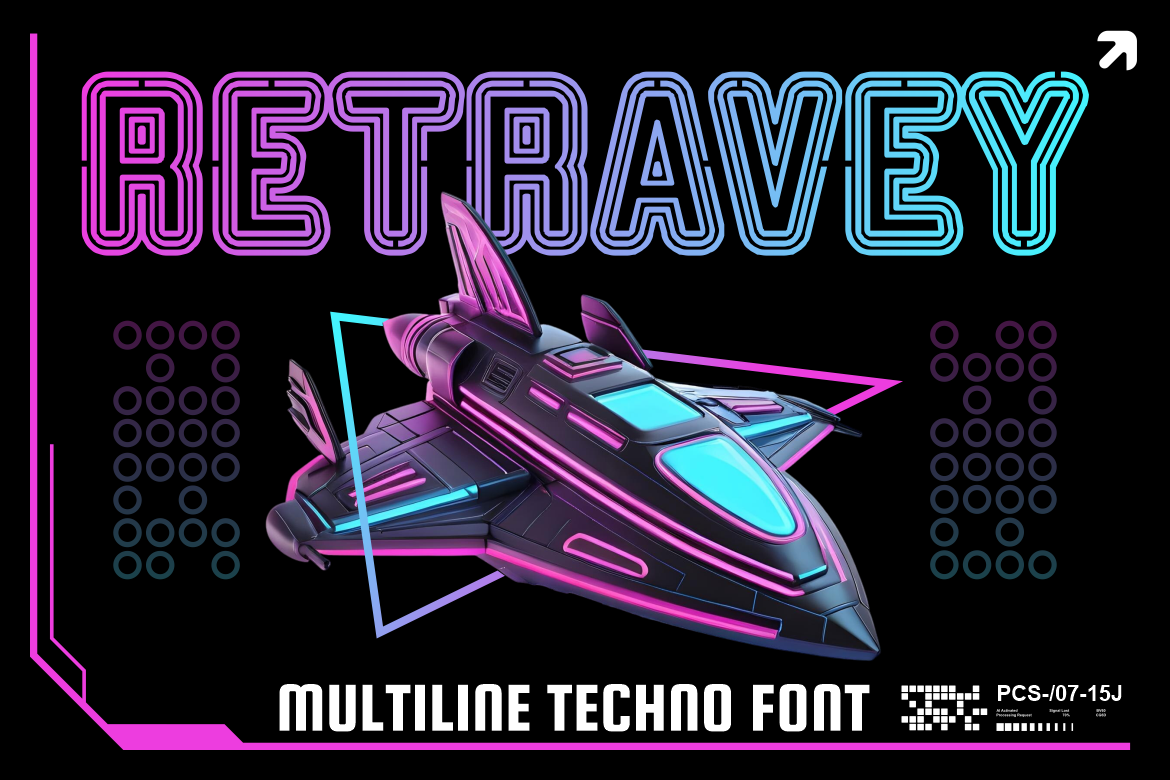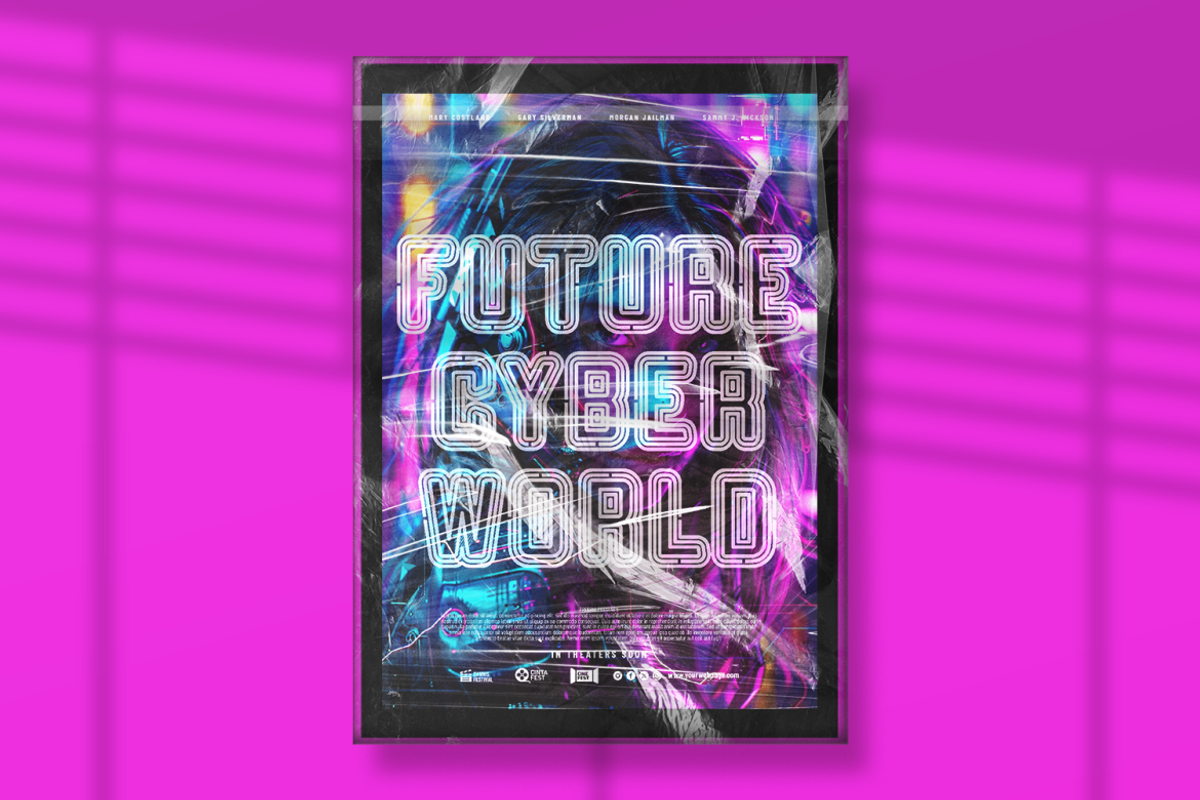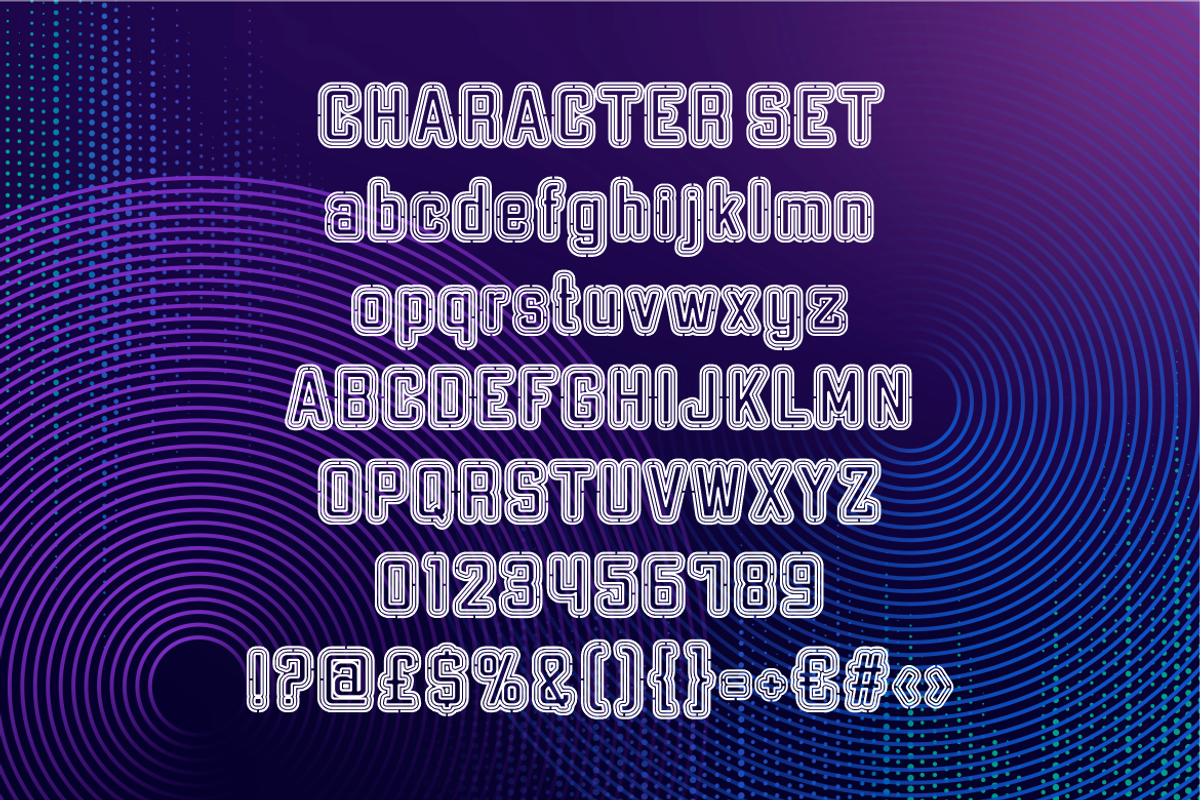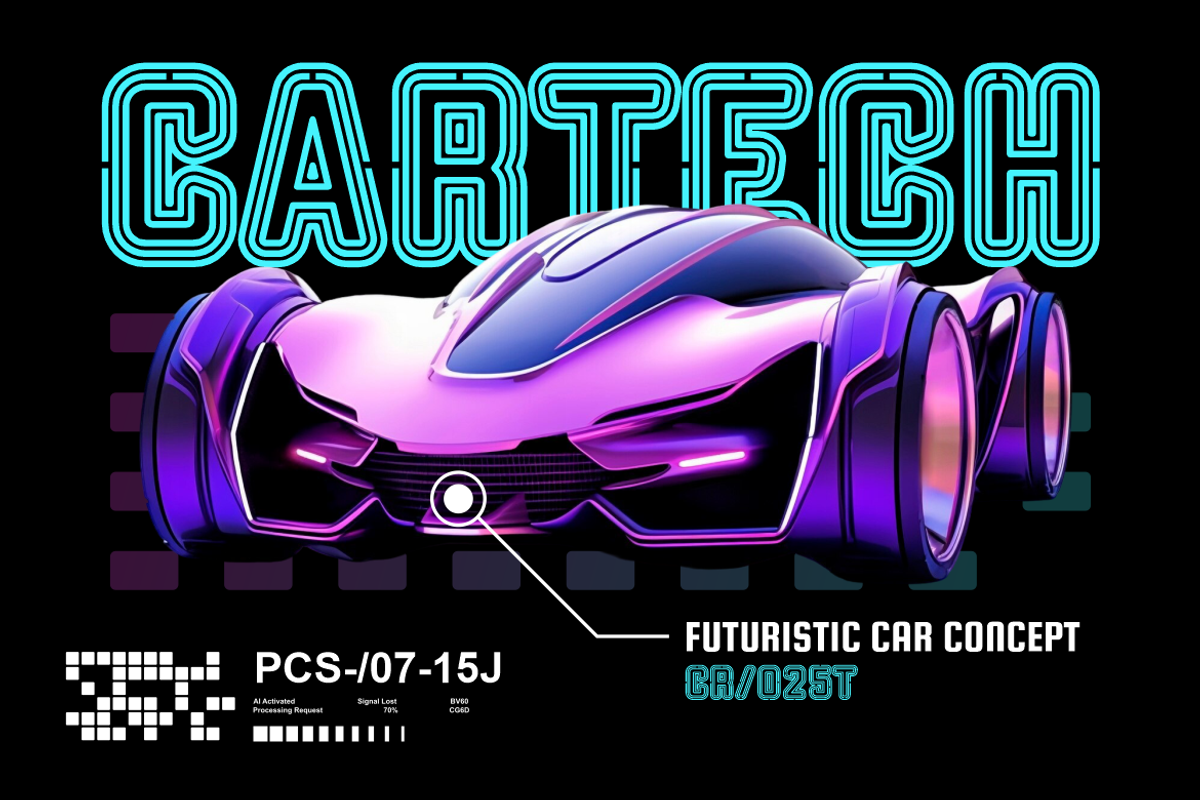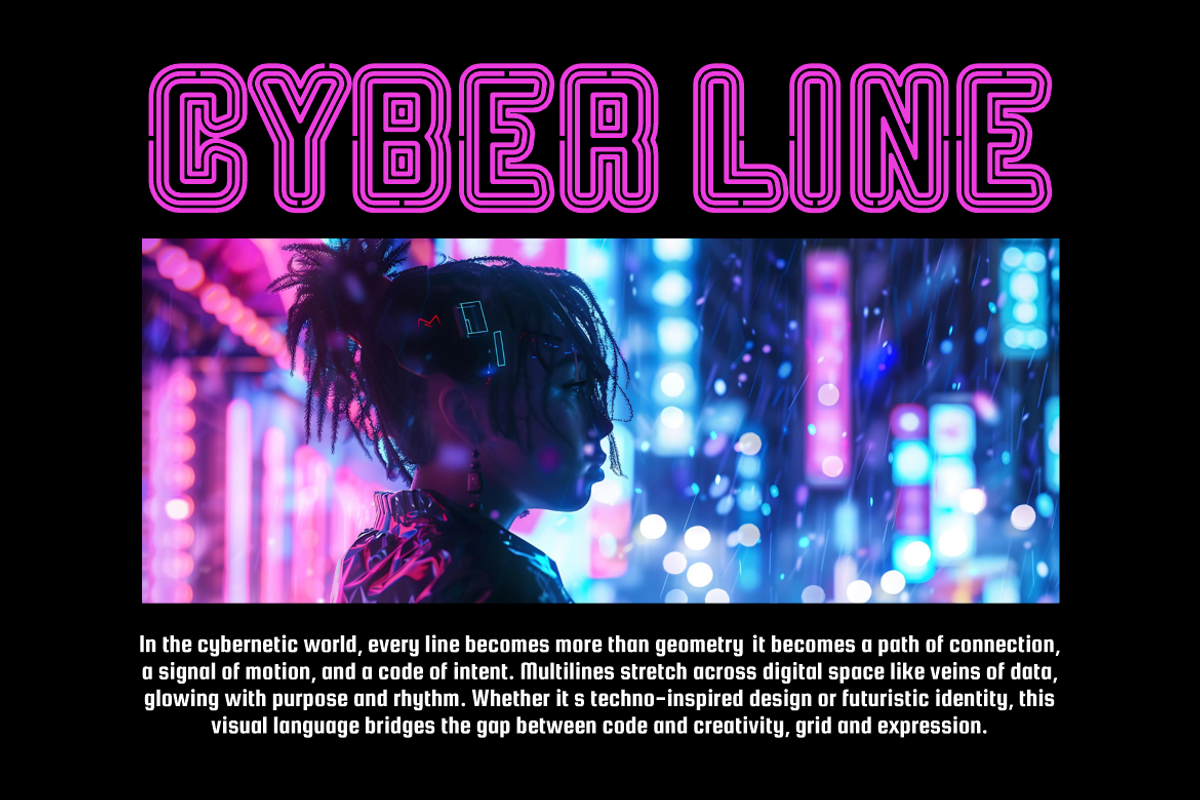
Retravey Multiline Font
Retravey Multiline Font is a futuristic typeface designed with rhythmic neon lines that echo cyberpunk aesthetics and tech-inspired energy. Each character is constructed using evenly spaced parallel strokes, creating a multilayered illusion of depth and digital motion. The font style combines rounded geometric forms with precision linework, channeling retro-futurism while staying relevant to today’s digital visual culture. With vibrant gradients and fluid outlines, Retravey adds an electrifying glow to any design it touches.
This font is ideal for projects that demand bold identity and futuristic flair. Whether you're designing a sci-fi movie poster, a music festival headline, or a high-tech branding campaign, Retravey energizes your typography with clarity and style. It shines best in large sizes and layered compositions—great for logos, packaging, event titles, cover designs, and interactive media. Its unique techno-multiline construction guarantees maximum impact in both static and motion design contexts.